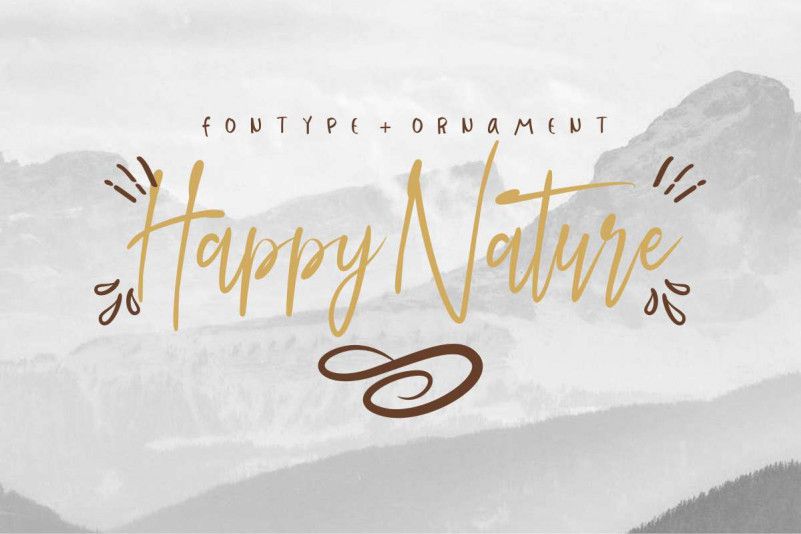
Happy Nature Script Font
This is a new script handwriting style font with ornaments.
This is a sophisticated styling font which will be perfect for branding, logo, flyer, headline etc.